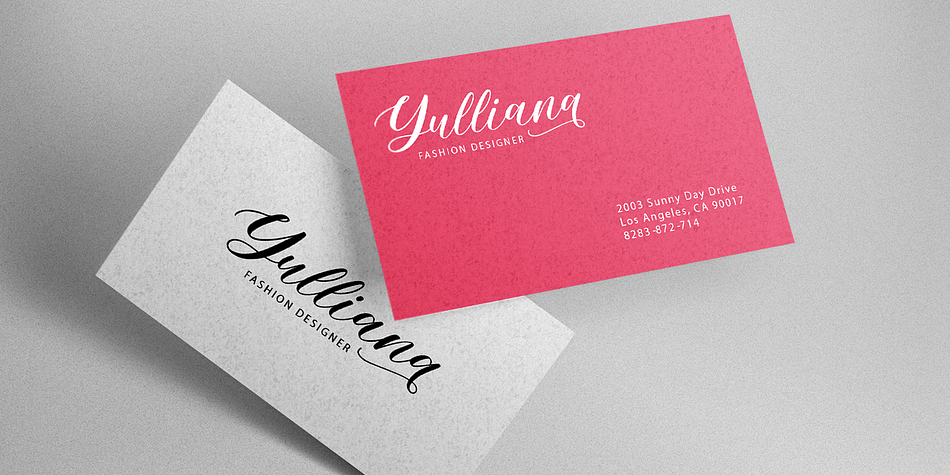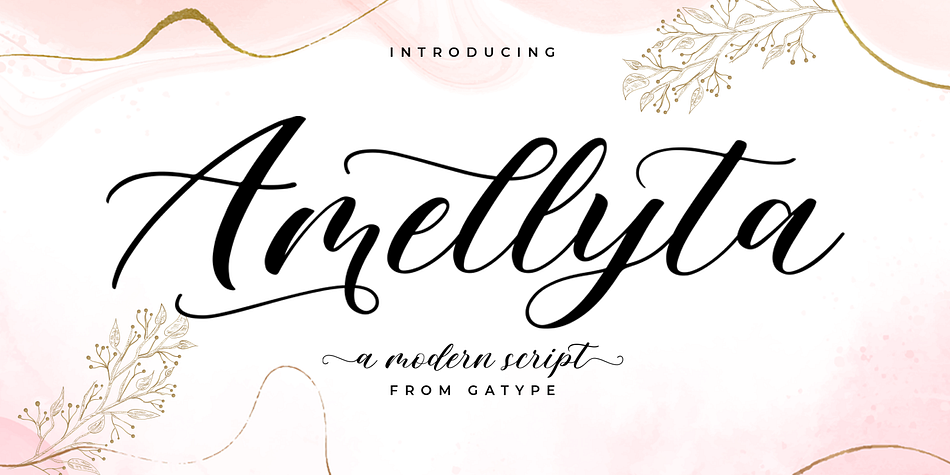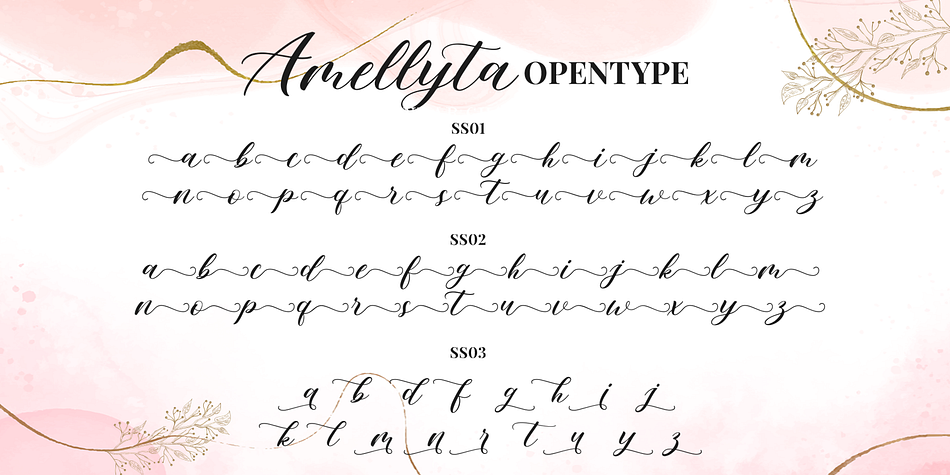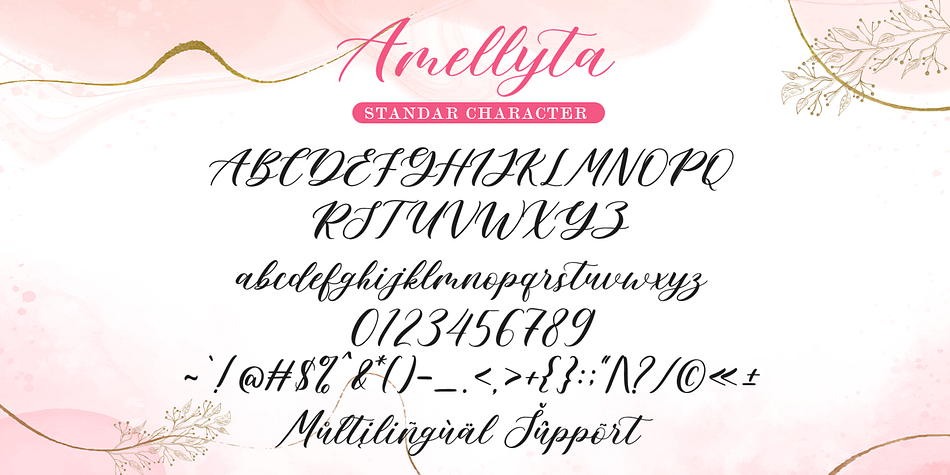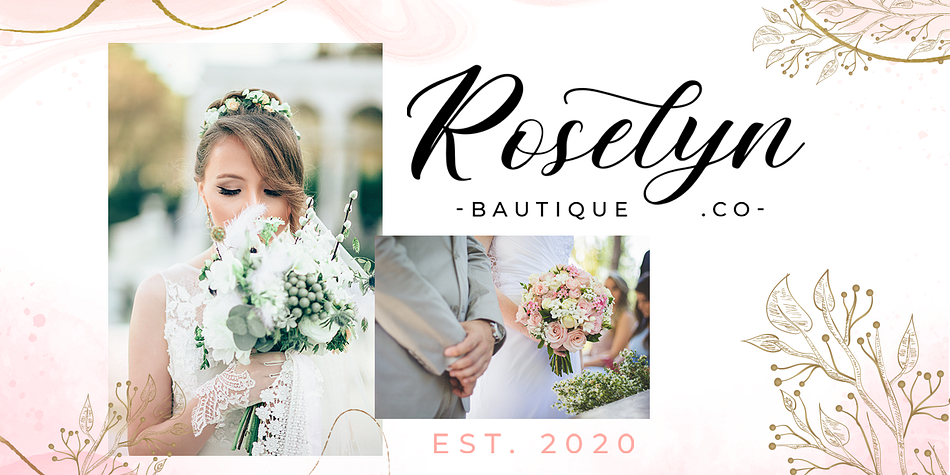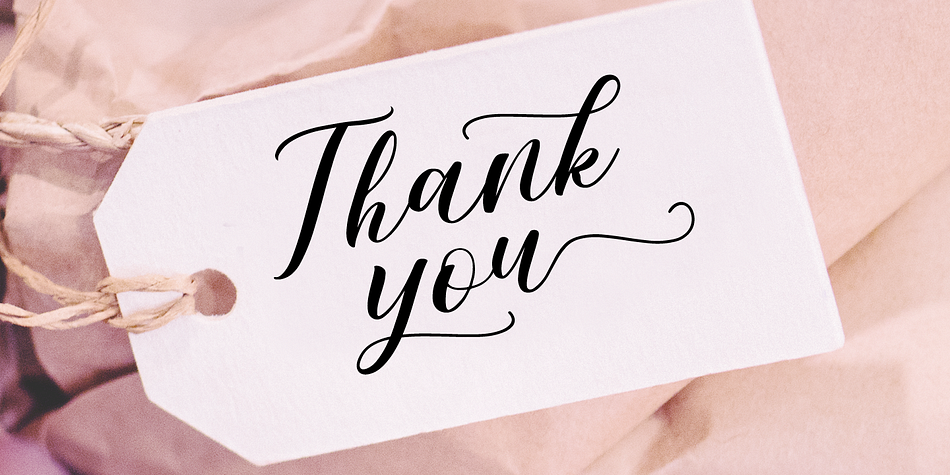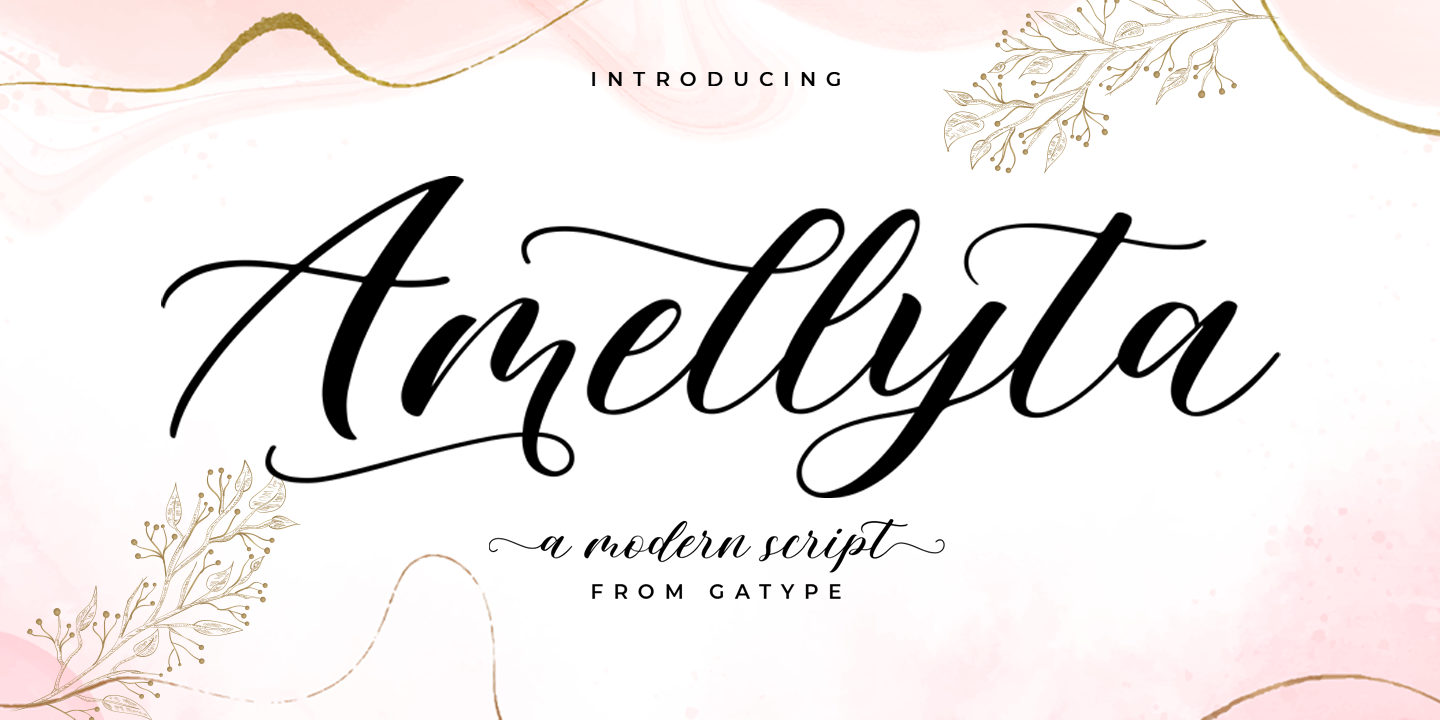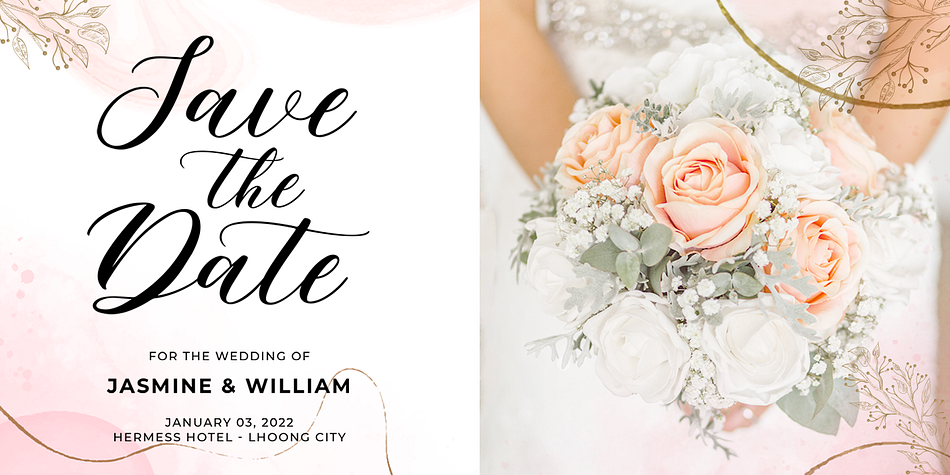
Amellyta
Amellyta is a modern calligraphy font family published by Gatype.
Amellyta Script is a modern calligraphy design. This font is elegant and beautiful with a stroke. Can be used for various purposes. such as logos, product packaging, wedding invitations, branding, headlines, signage, labels, signatures, book covers, posters, quotes and much more.